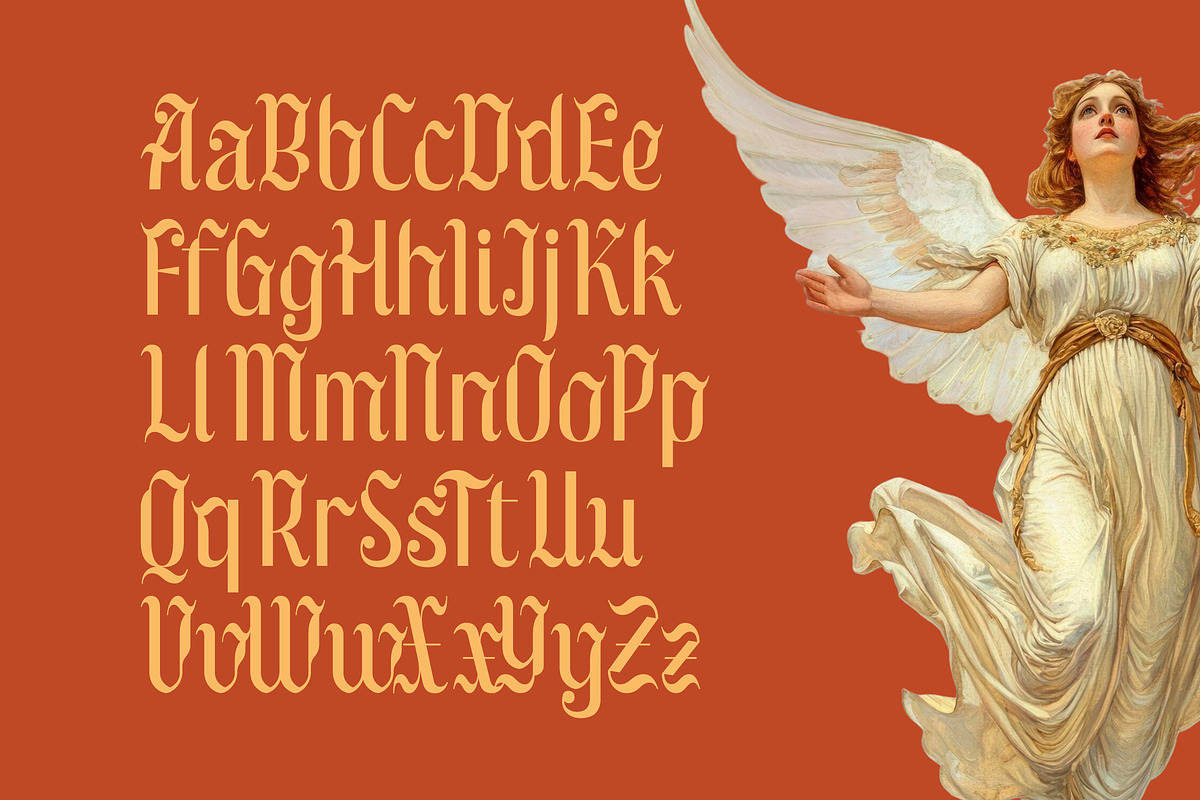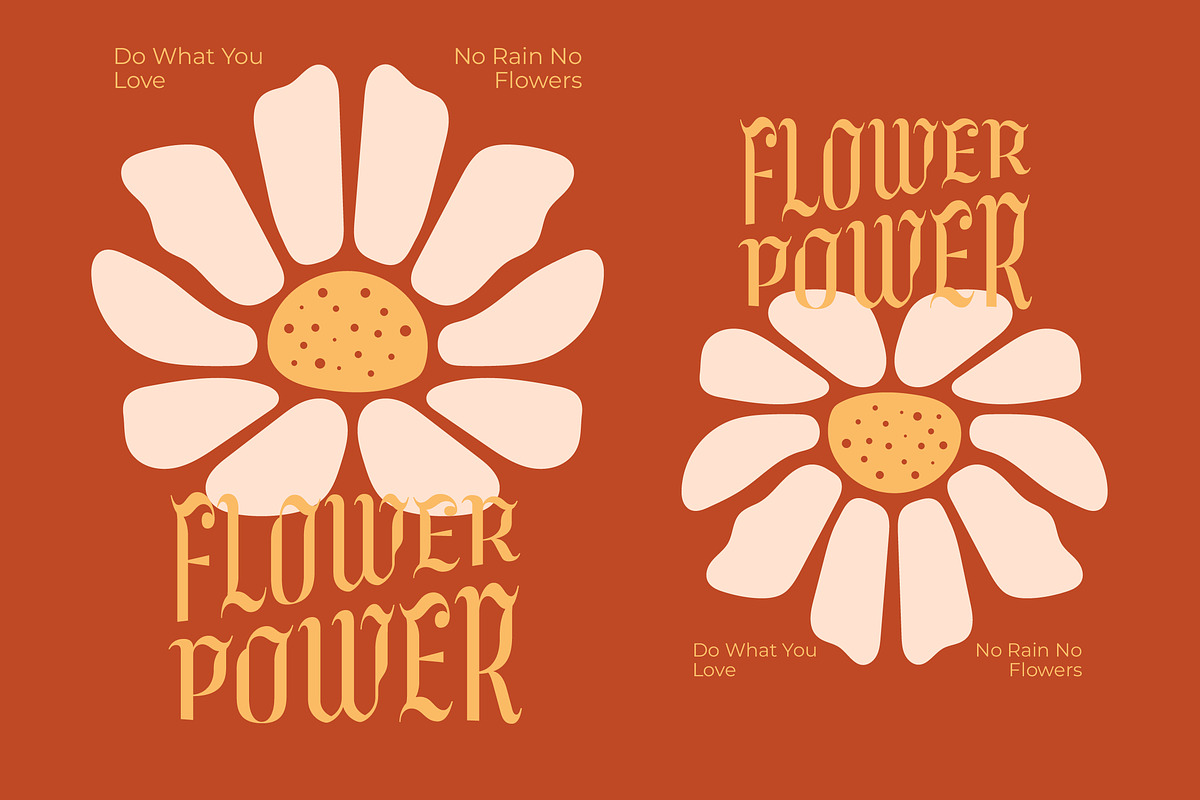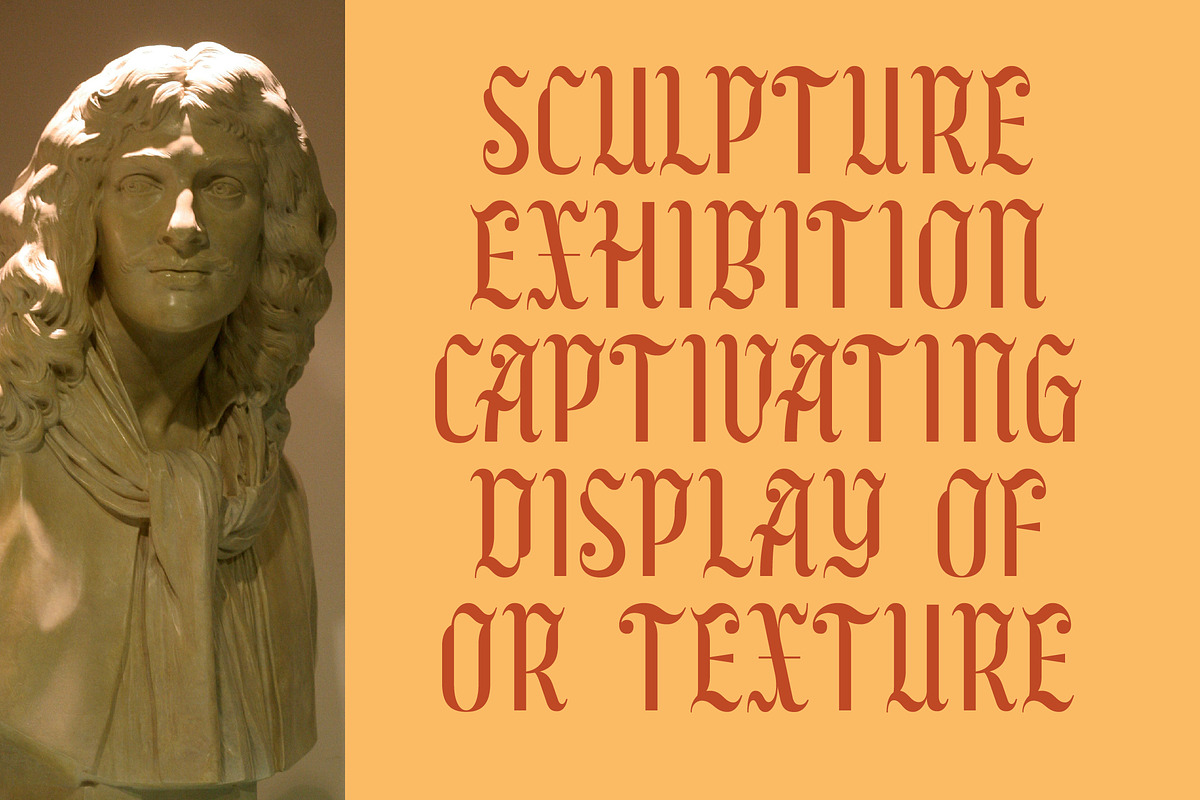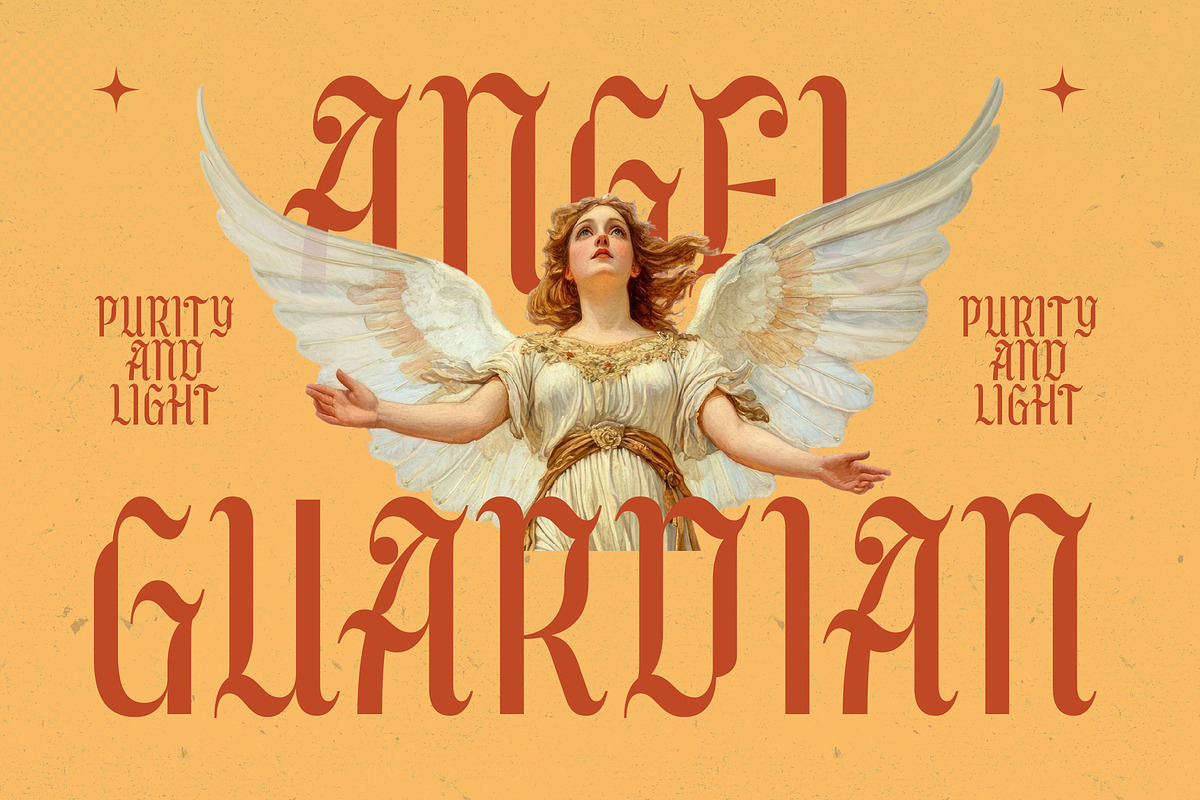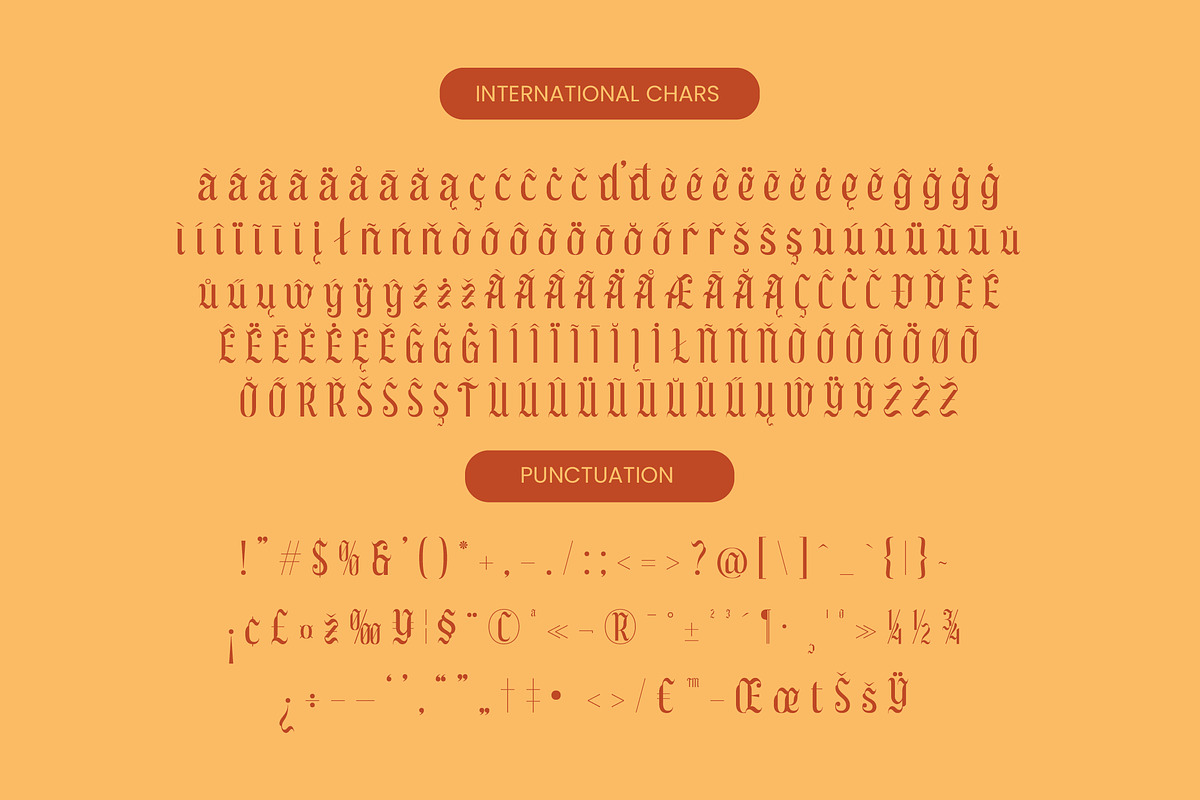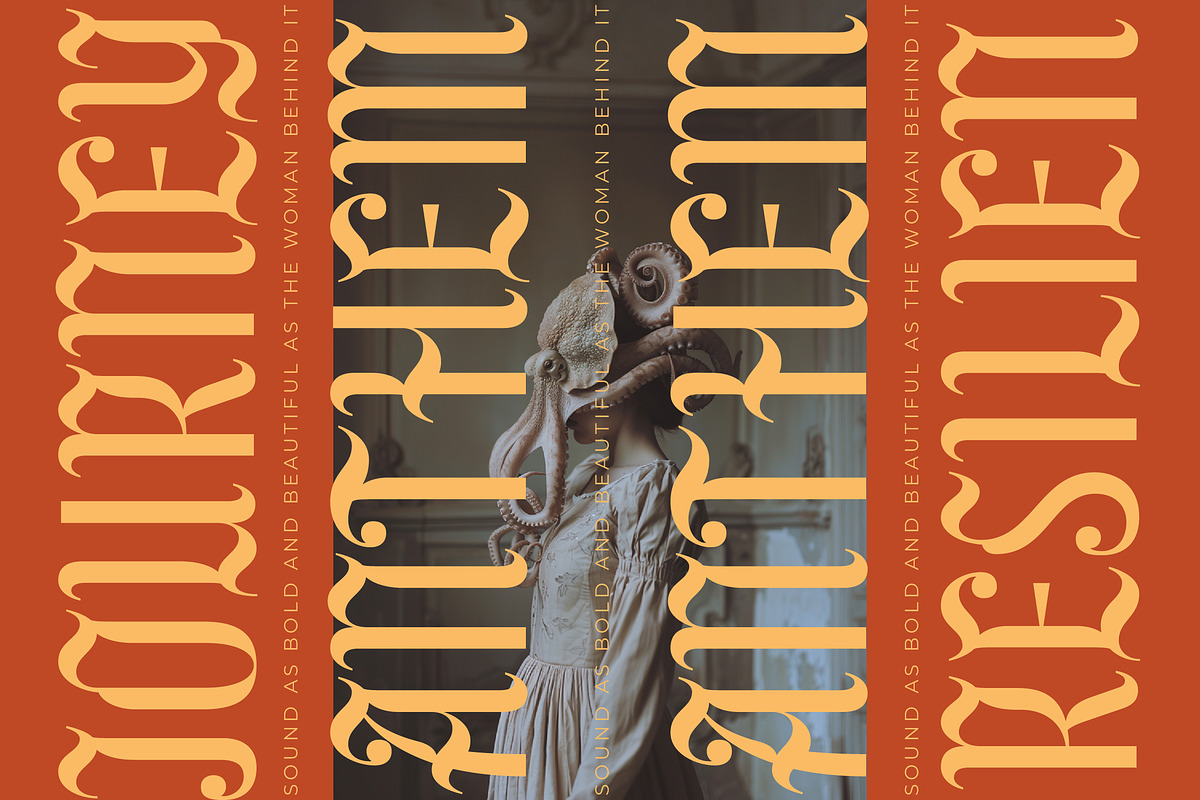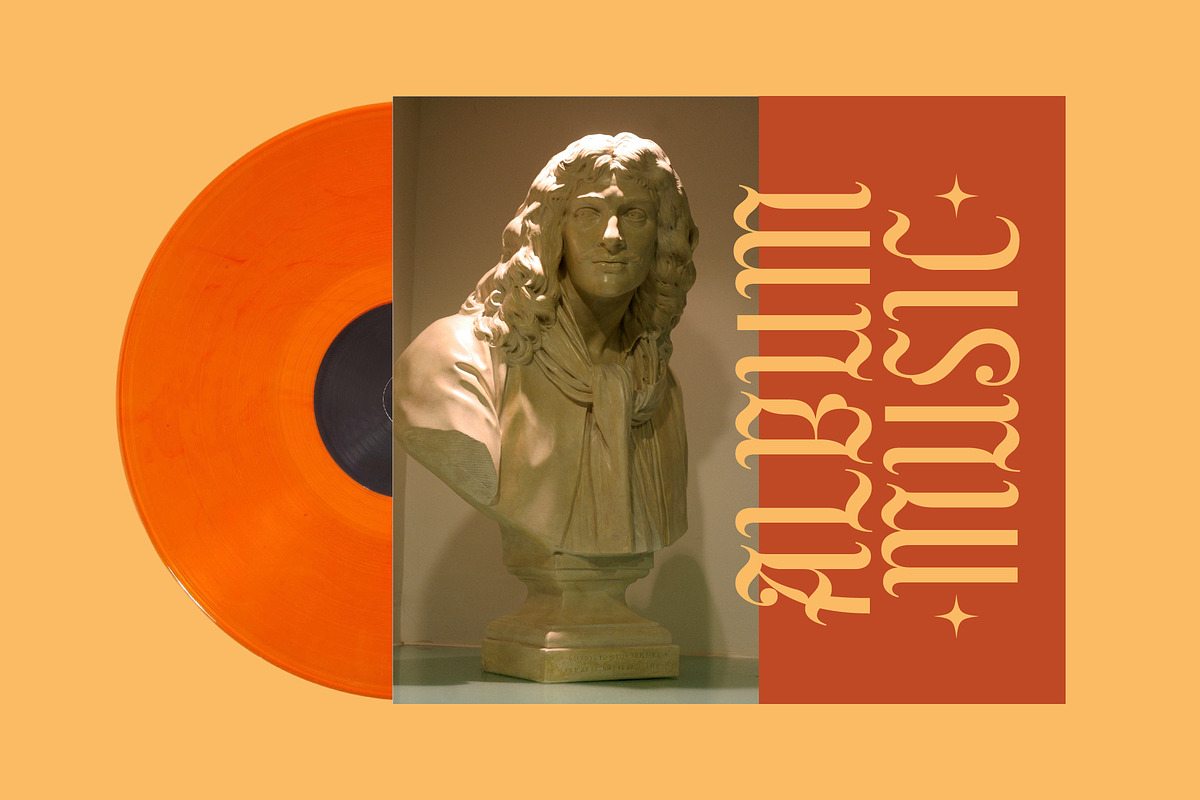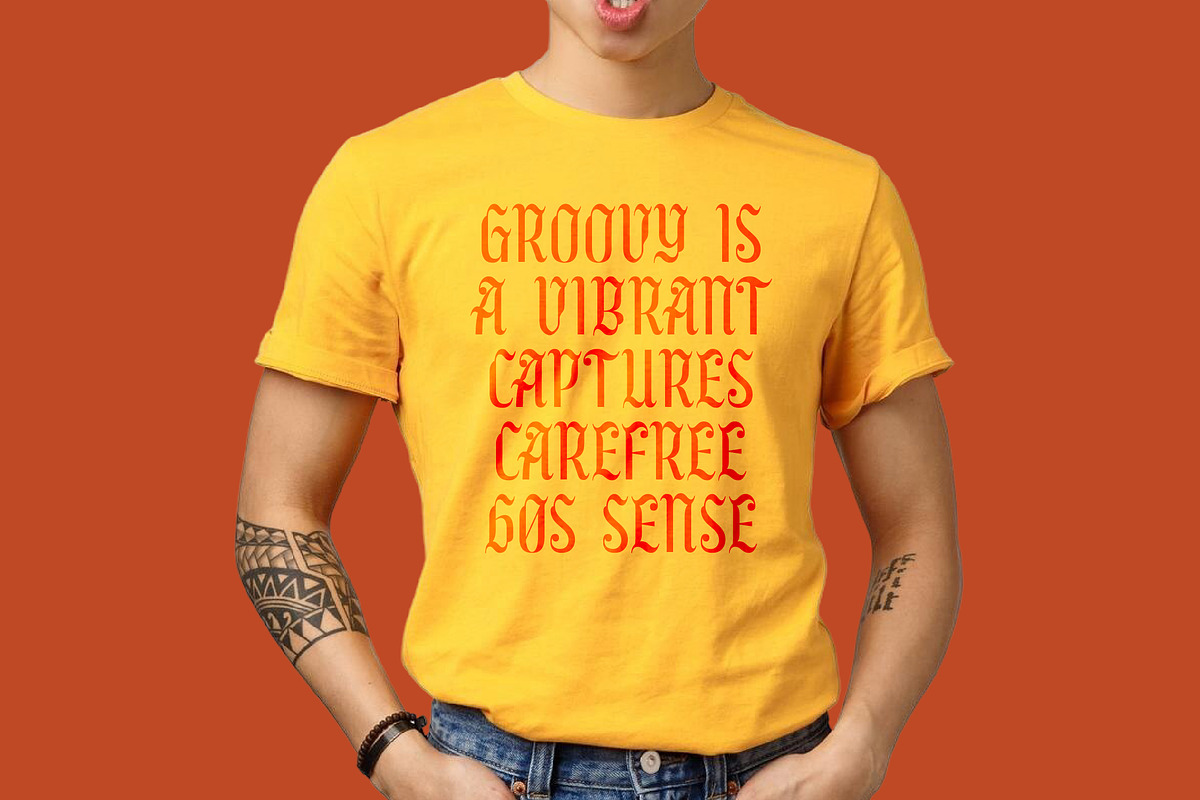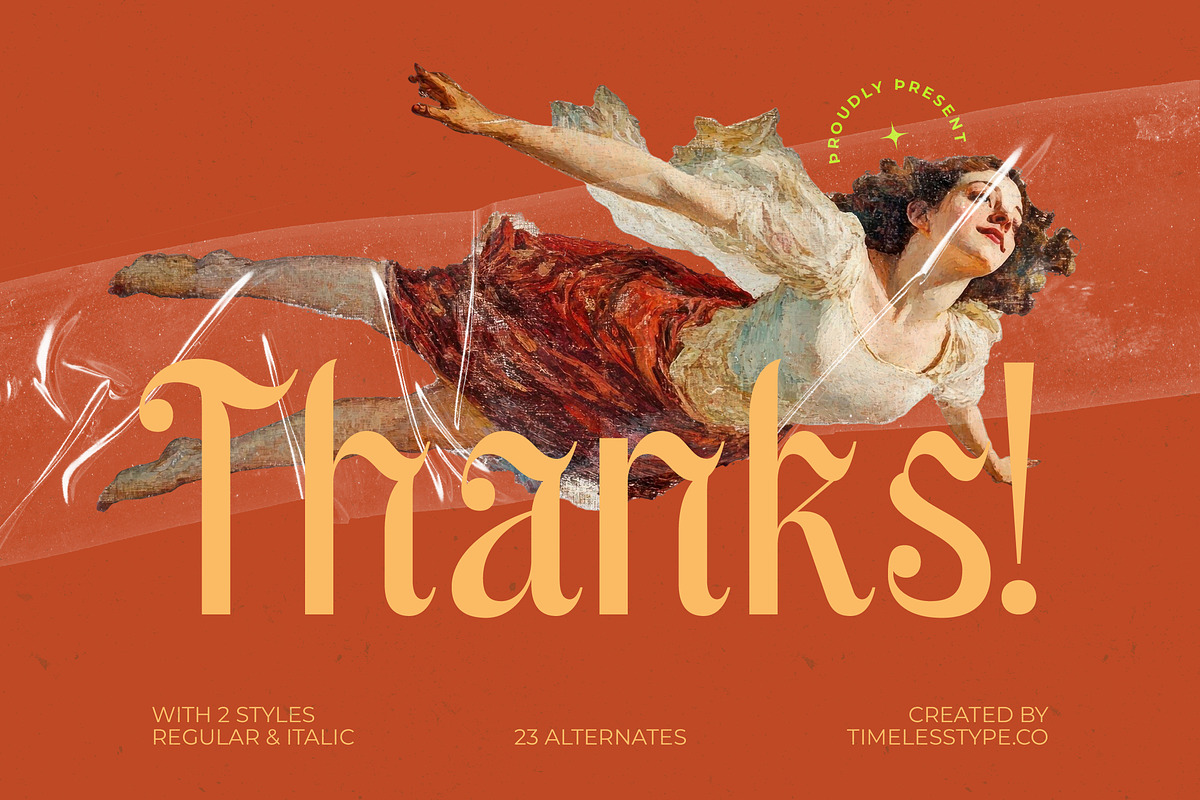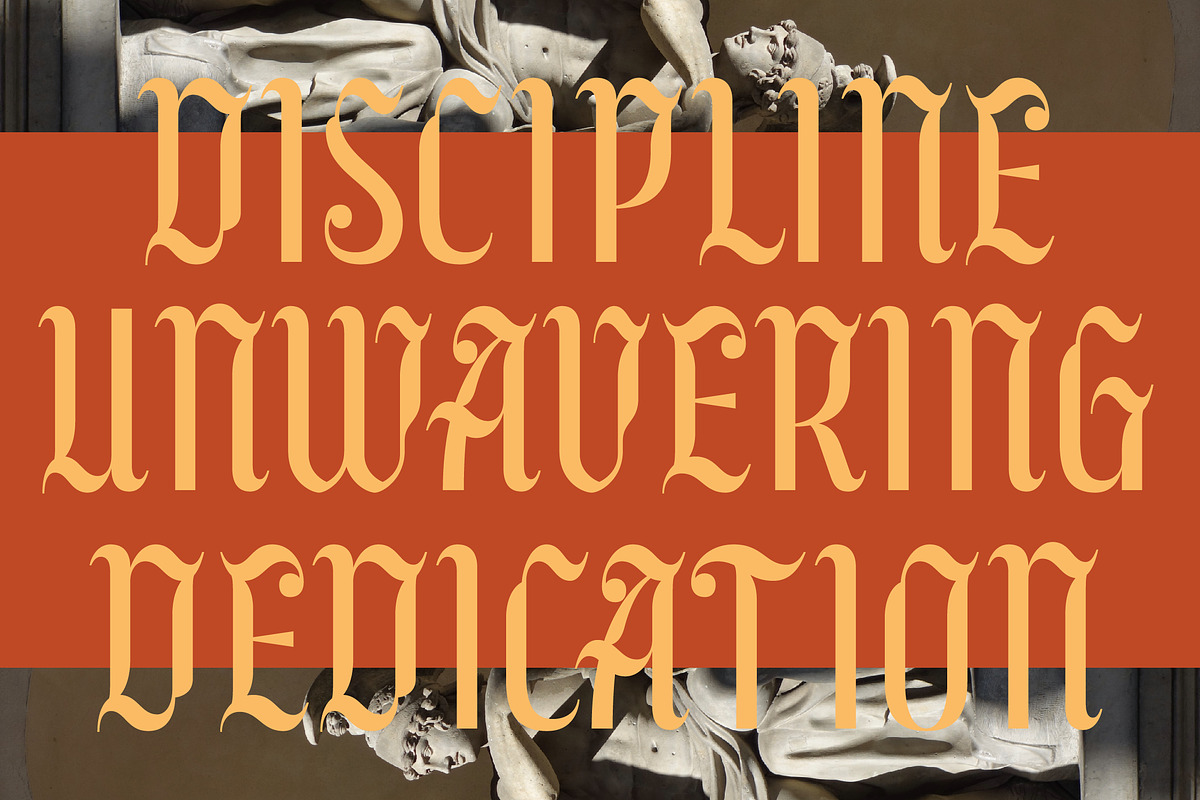
Wadepak Modern Groovy Serif
Wadepak is a breathtaking fusion of classical elegance and contemporary flair, designed to command attention on any canvas. This typeface transcends traditional boundaries, offering a sophisticated visual language for those who dare to be bold.
Drawing inspiration from the rhythmic flow of 60s groove and the structured beauty of vintage blackletter, this font captures a timeless spirit. It feels like a piece of art discovered in a hidden gallery, blending historical weight with a light, modern touch.
The modern serif display characteristics of this font provide a luxury typography experience that is both refined and impactful. With its high-contrast serif design, it functions as an editorial font that delivers a significant branding impact for high-end projects.
Perfectly aligned with the modern serif trend, this typeface addresses the growing demand for editorial display fonts that possess a unique soul. It stands out in the landscape of character-driven typography, offering designers a tool that feels both current and nostalgic.
This versatile typeface is the ideal choice for high-stakes logo design and comprehensive branding systems that require a distinct voice. Whether applied to high-fashion editorial layouts, premium packaging, romantic wedding stationery, or bold fashion lookbooks, it excels in every environment.
The package includes both regular and italic styles, complemented by a rich set of 23 alternates to customize your layouts. It also features extensive multilingual support and international characters, ensuring your message resonates globally with precise ligatures and glyphs.